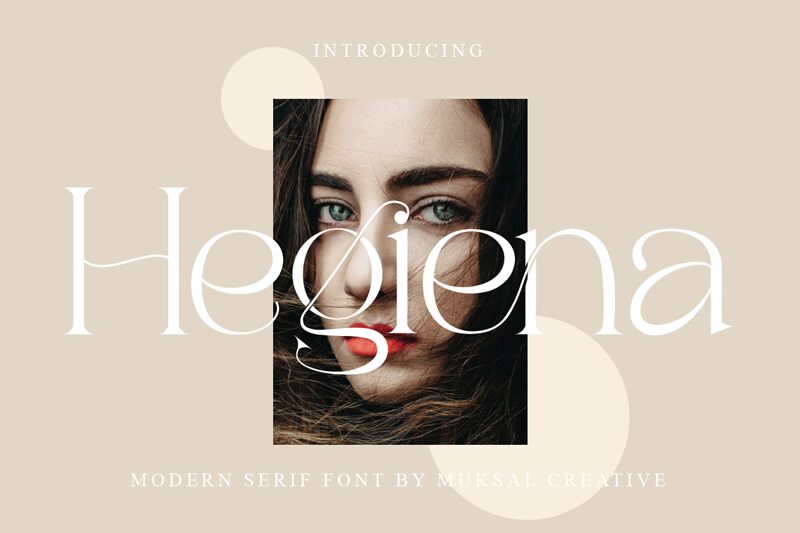
Hegiena
Font style: scriptIntroducing Hegiena - a light and elegant sans serif font from Muksal Creative. Perfect for creating wedding invitations, crafting Instagram quotes, logo designs and more. Start creating your next project today with Hegiena!